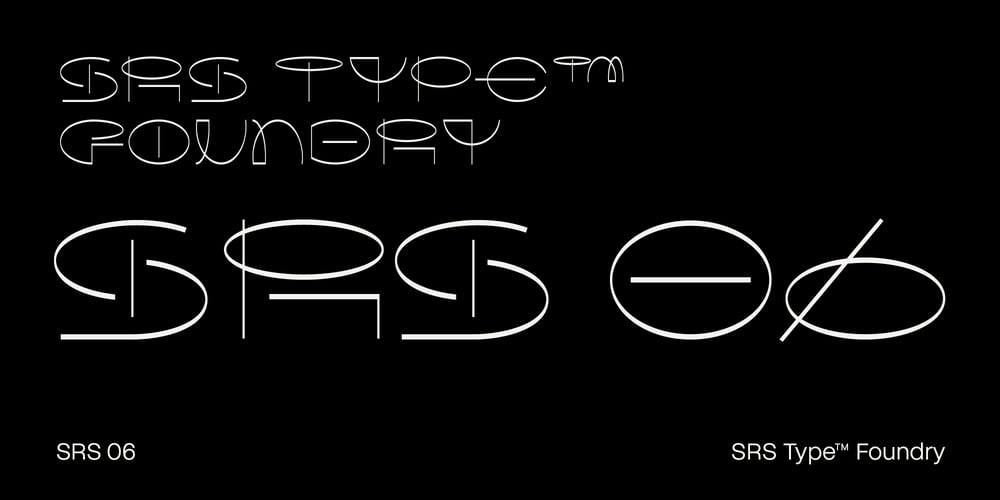
SRS 06 Font Family was designed by Soung-ryung Shin and published by SRS Type. SRS 06 contains 1 styles and family package options. SRS 06 is an experimental typeface that explores new possibilities by deconstructing and geometrically transforming the structure of fonts. It prioritizes aesthetic individuality over functionality, aiming to discover new avenues for typography.